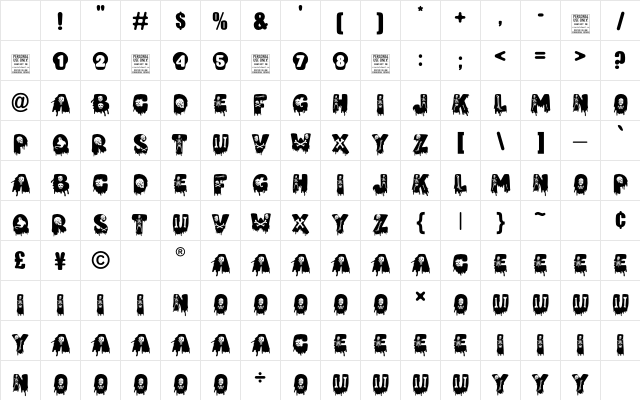
Complete Halloween Witches Display glyph index. Displaying only characters natively supported by Halloween Witches Display font.
Halloween Witches is built around its visual character rather than neutral utility - its distinctive forms are designed to make an impression at display sizes.
Font Pairing: Pair with a clean neutral sans-serif for body copy to let Halloween Witches's character lead without overwhelming the composition.
Pro Tip: Use Halloween Witches exclusively at display sizes - it was designed to be seen, not read at length. Let a neutral companion handle body copy.